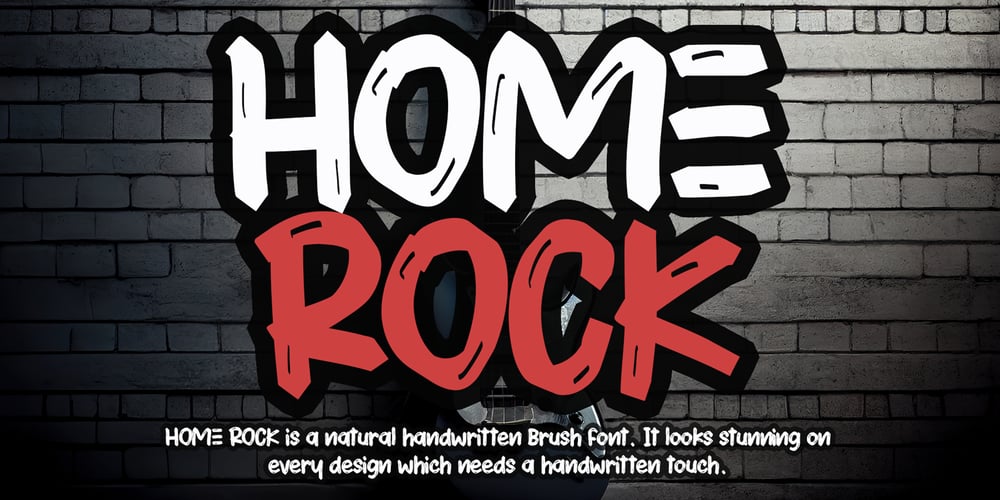
HOME ROCK Font Family was designed by Ahmad Afandi and published by Letterafandi Studio. HOME ROCK contains 2 styles and family package options. HOME ROCK is a natural handwritten brush font. It looks stunning on thank you cards, quotes, greeting cards, logos, business cards, and every other design which needs a handwritten touch.